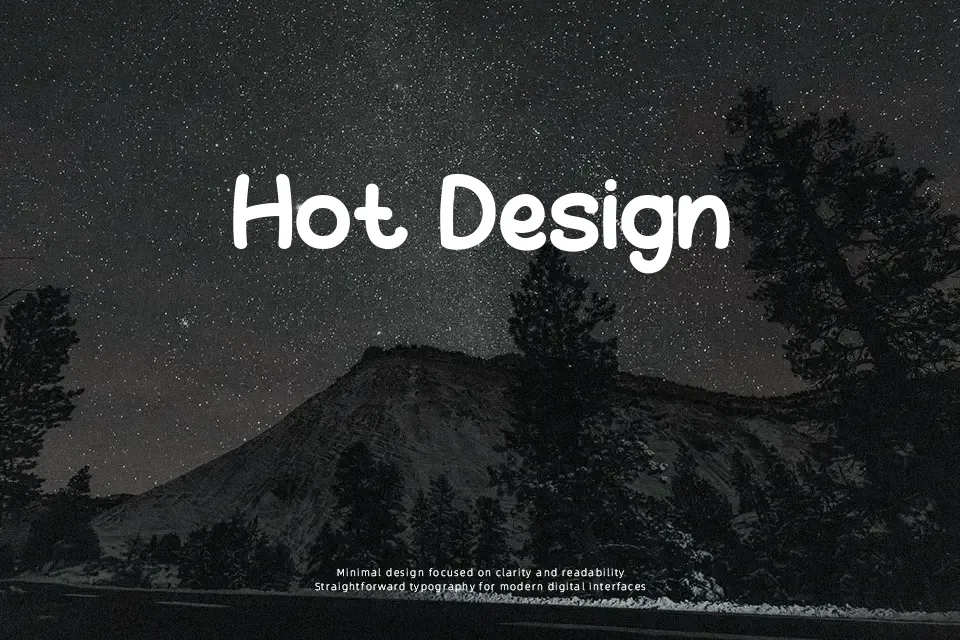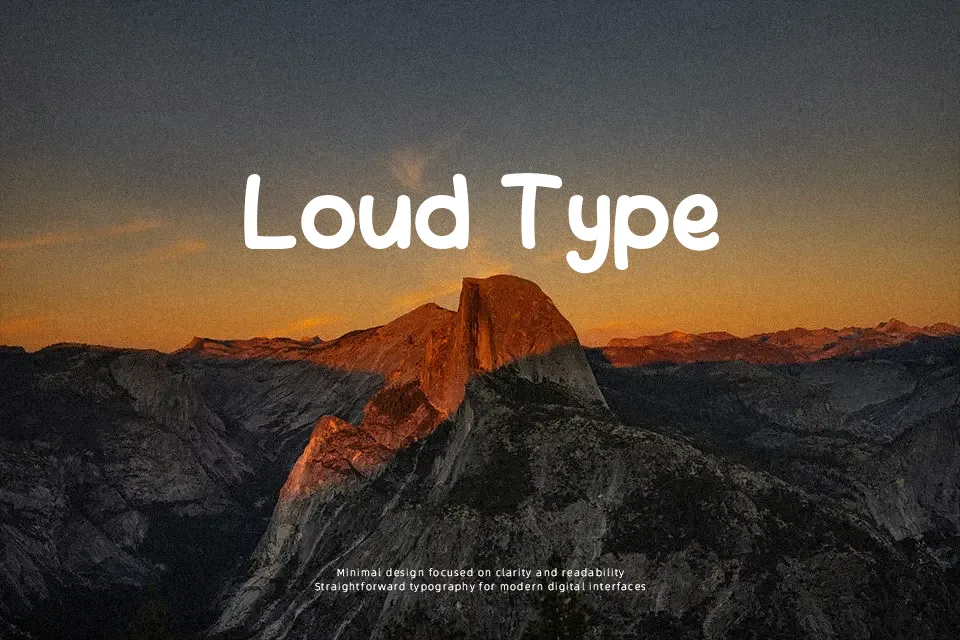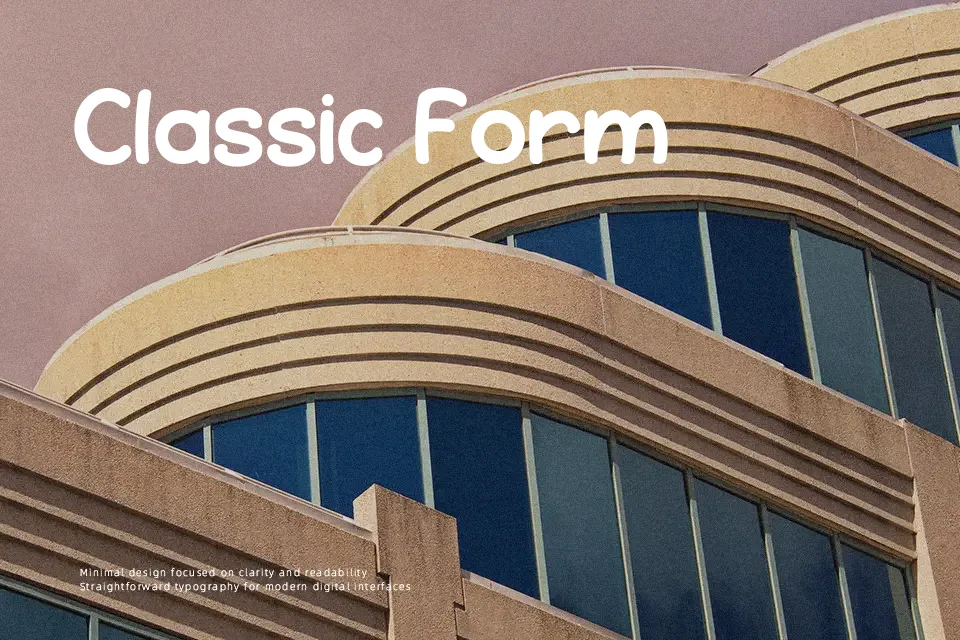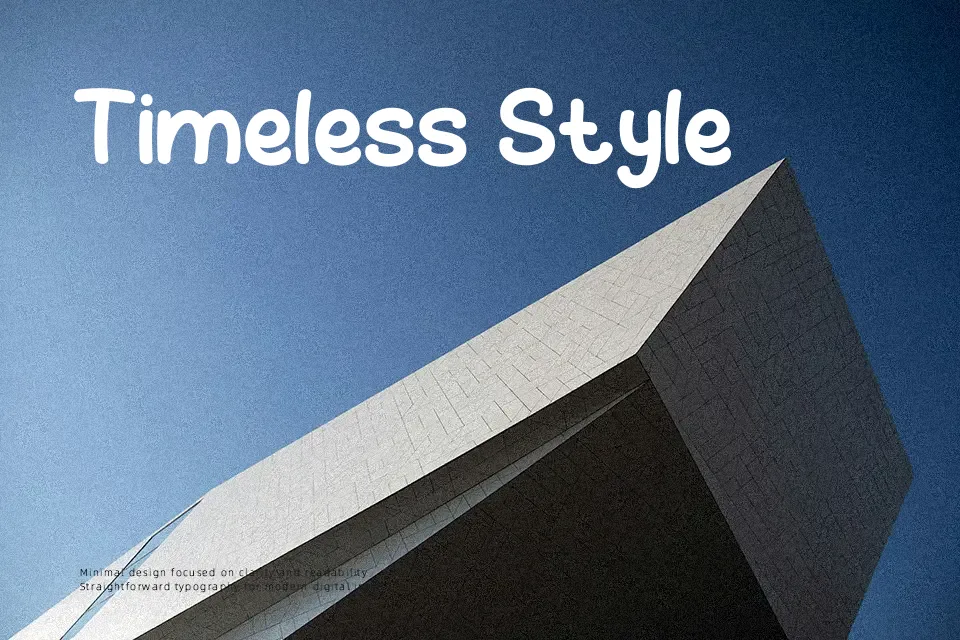
Candy Baby Font
Designed by Achmad Yani
Candy Baby is a chunky, rounded display script with bubbly strokes, loose curves, and generous counters that read as soft and candy-like rather than sharp or formal. Letters sit fairly close together, so words feel compact and lively, especially at larger sizes. Overall it leans decorative and playful, more like a kids’ cartoon logo than everyday text, which gives it strong character but limits subtlety. It works well for children’s event posters, snack or toy packaging, playful logo wordmarks, and bright social media titles where you want a sweet, approachable tone. For long paragraphs, serious branding, or very small UI labels, the rounded forms can feel heavy and reduce clarity, so it’s better treated as an accent or headline face rather than a workhorse family.
kids party posters and flyers
snack, candy, or toy packaging titles
playful logo wordmarks for children’s brands
bright, bubbly social media headline graphics
long editorial or body text
formal or corporate brand identities
tiny UI labels or dense data interfaces
serious news, finance, or legal content
Perfect for kids, logo, and packaging, with a creative and cartoon style.